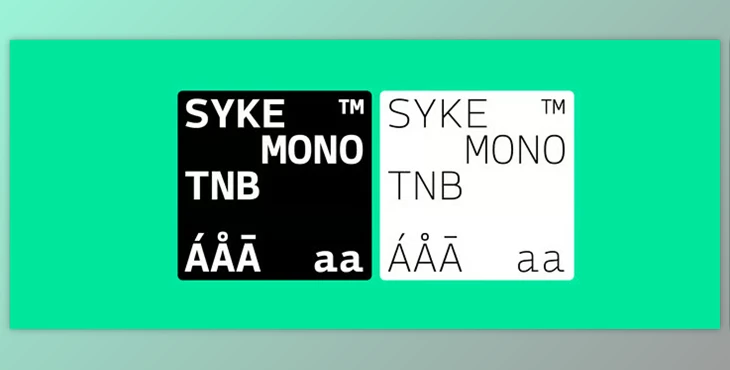
The Syke Mono Font Family is a professional monospaced typeface that partners with the award-winning Syke type family. It is based on the proportional Syke and includes many design details applied to select characters to ensure central alignment/legibility/utility. While Syke Mono is a modern, different-looking font, it doesn't distract from its purpose of being a monospace font, as it was not designed to look like a typical typewriter font. Thus, it can be used for anything relating to computer coding, archiving databases, ebooks, and digital screens/guides/guides.
The Family is available in 5 weights and true italics and possesses more than 590 glyphs in the character set. Also included are alternatives for lowercase "a", "i", "l" and "r"; numeral variations (5); kerning manually adjusted between letters and an extensive array of OpenType features.